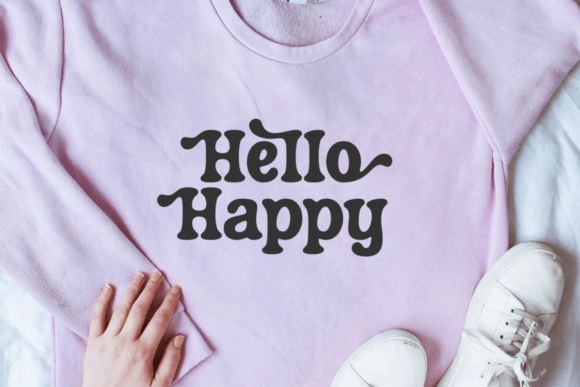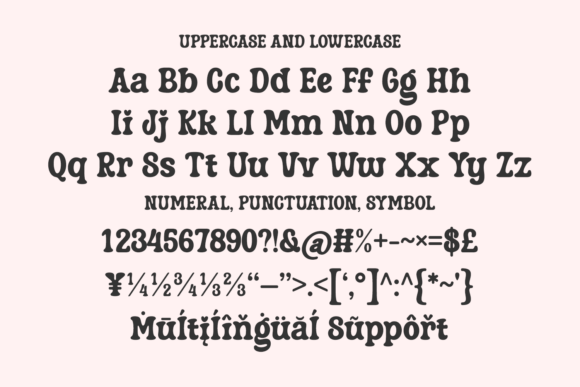
Funky Pickle Font
Make your designs pop with the Funky Pickle Retro Font, an intriguing blend of vintage charm and modern sophistication. With its playful curves and alternate characters, this typeface exhibits a groovy retro aesthetic that resonates with nostalgia. An ideal choice for displaying heart or notes, its elegant and stylish framework adds an extra layer of sophistication to your creations.
Perfect for a variety of themes ranging from the hipster to the hippie, it encapsulates the fashion trends from the 70s to the 90s with an added touch of boho. The serif features of the font give it a quirky appeal, creating a statement on every creative project you embark on. Channeling a bold, summer vibe, the Funky Pickle Retro Font embodies the perfect blend of casual and trendy, a cute font that conveys love and romance in each stroke.
An absolute essential for birthdays or Valentine’s designs, this delightful typeface captures the attention with its lovely and pretty aspects. Ideal for a variety of platforms including Procreate and Cricut, it has been crafted by the talented designers at 7ntypes, intertwining vintage charm and nostalgic traits. Unwrap creativity with the Funky Pickle Retro Font.